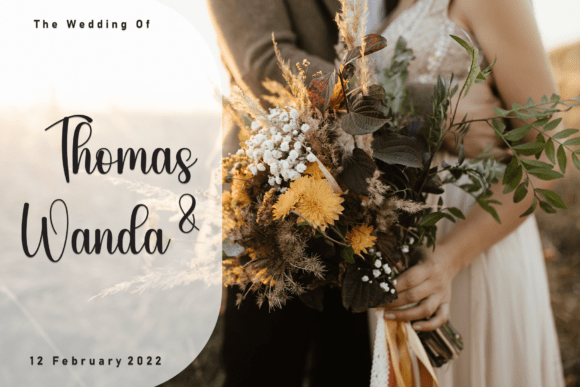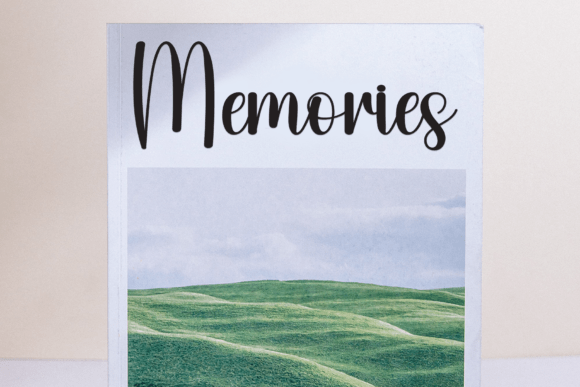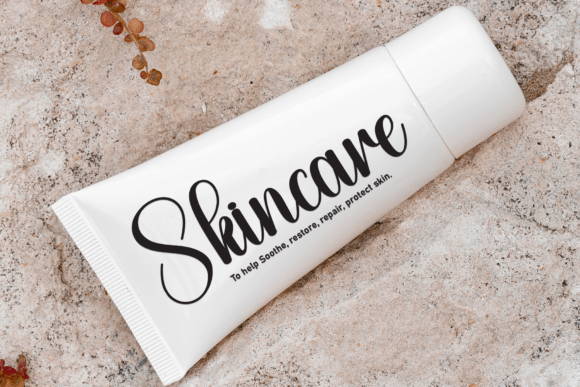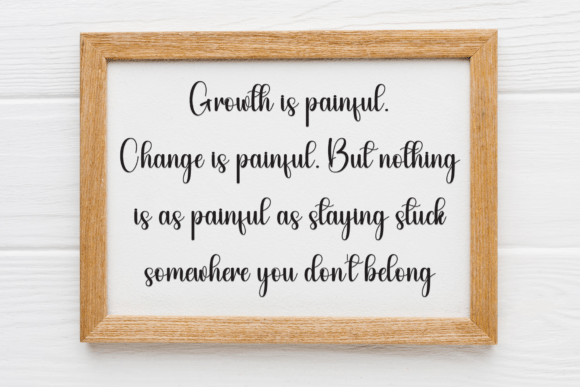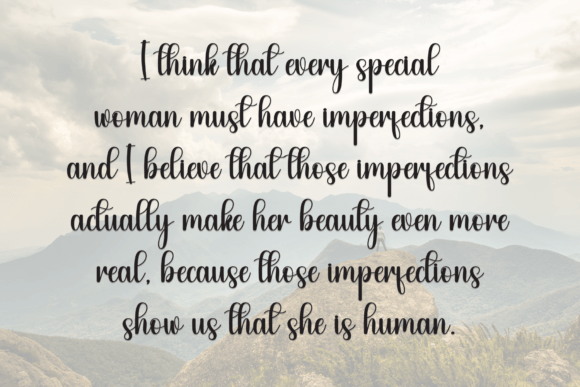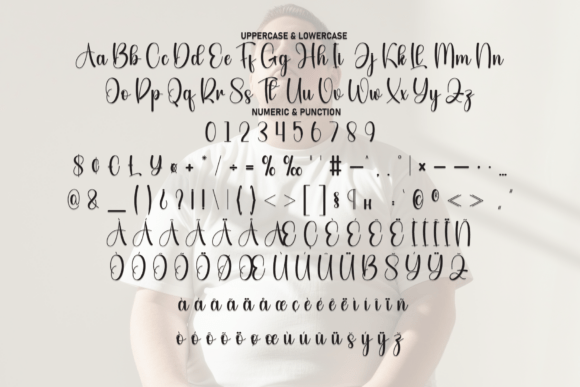
Discover the Joy of Handwritten Charm with Chubby Font
As a designer, have you ever wanted to add a personal touch to your wedding invitations or greeting cards that would make them truly unforgettable? You know the feeling – that spark of creativity when you stumble upon the perfect font that perfectly captures the essence of your design. For me, it was the moment I laid eyes on Chubby Font, a delightful handwritten script font that exudes a joyful touch.
Chubby Font is more than just a font – it’s an invitation to add a playful and whimsical touch to your designs. Its friendly and inviting nature makes it a valuable asset for designers seeking to create unique and captivating visuals. With Chubby Font, you can transform regular text into an appealing visual treat that’s sure to delight your audience.
Key Features of Chubby Font
- Size and Resolution: Chubby Font is available in various font sizes and resolutions, including small caps, titling caps, and old-style figures, allowing for precise control over typography.
- Unique Characteristics: Chubby Font features a unique, rounded design with subtle irregularities, giving it a friendly and approachable feel that is perfect for use in children’s books, advertising, and other creative applications.
- Kerning and Ligatures: Chubby Font includes advanced kerning and ligature pairs, ensuring that text sets are visually appealing and easy to read.
Designer Review: Chubby Font
Overall, I think Chubby Font is an interesting addition to any design project. ✨ One of its strongest aspects is its playful, whimsical feel, making it perfect for applications that require a lighthearted tone. The font’s rounded edges and bold lines add to its friendly, approachable nature.
Another advantage of Chubby Font is its versatility in terms of pairing. It can be used effectively with a wide range of other fonts, from serif to sans-serif, making it a great choice for designers who need to create a unique visual identity.
However, there are a few limitations to consider. ⚠️ One of the main drawbacks is its limited legibility at smaller font sizes. The font’s rounded edges can make it difficult to read in certain contexts, which may require additional design work to mitigate.
- Limited legibility at smaller font sizes
- Not suitable for formal or professional applications
- May require additional design work to ensure readability
While Chubby Font may not be the best choice for every design project, it’s definitely worth considering for applications that require a playful, approachable tone. With its unique personality and versatility, it can add a lot of character to a design. Just be sure to keep its limitations in mind and plan accordingly.
Chubby Font is ideal for creating playful, whimsical designs. Use it for:
– Food or beverage branding
– Children’s book illustrations
– Party invitations